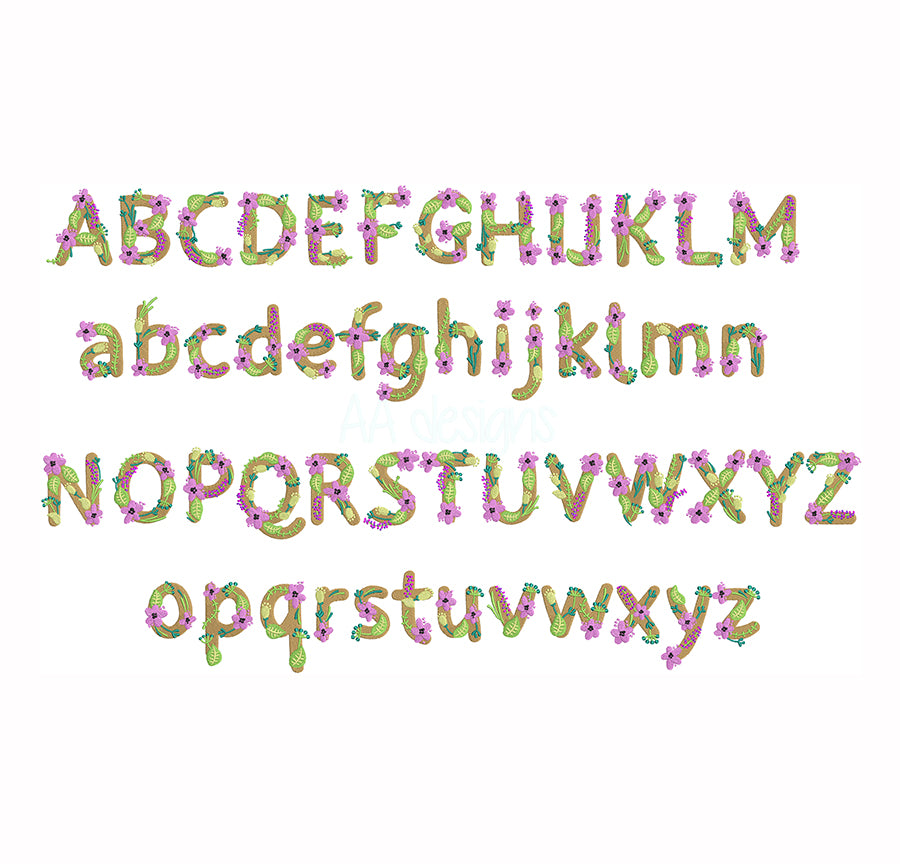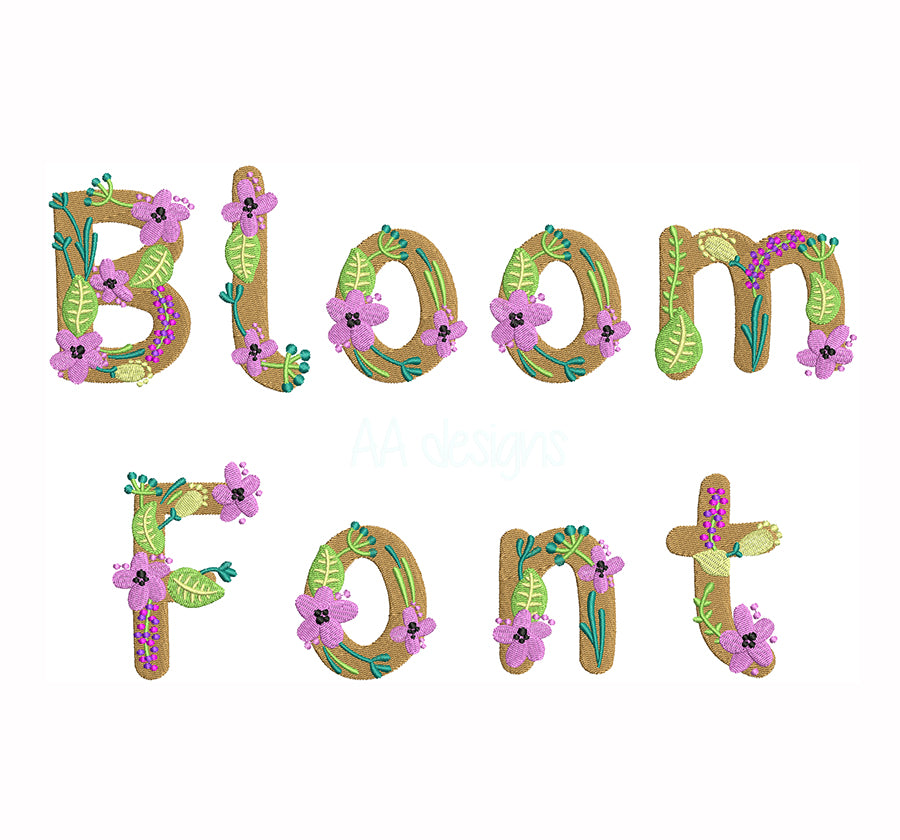
Bloom Embroidery Font
Let your creativity blossom with the Bloom Embroidery Font — a beautifully feminine machine embroidery font adorned with delicate floral accents that bring a fresh, garden-inspired elegance to every stitch. 🌸✨
With its graceful letterforms and blooming floral details, this font is perfect for spring and summer apparel, bridal and baby shower gifts, tote bags, home décor, and any project that deserves a touch of natural beauty and charm.
- Includes full alphabet (A–Z, a–z) and numbers